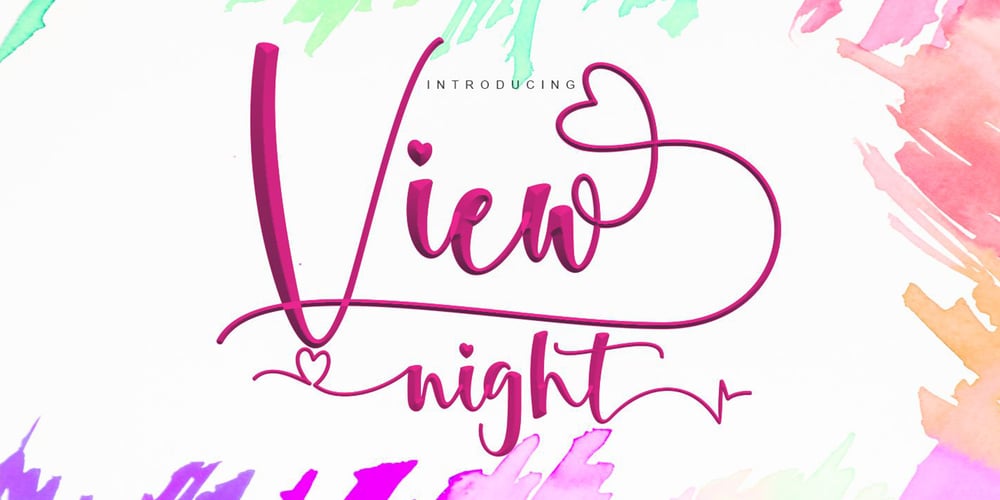
View Night Font Family was designed by Yusliana M Isa and published by Gian Studio. View Night contains 1 styles and family package options. View Night is this amazing typeface handmade script font we created in freestyle for those of you who do work and crafts.It’s perfect for any type of work you’re working various purposes such as logos, wedding invitations, headings, t-shirts, letterheads, signage, labels, news, posters, badges etc.OpenType features with alternative styles, ligatures, and multiple language support.To enable the OpenType Stylistic alternative, you need a program that supports OpenType features such as Adobe Illustrator CS, Adobe Indesign & CorelDraw X6-X7, Microsoft Word 2010 or later.How to access all alternative characters, using the Windows Character Map with Photoshop: